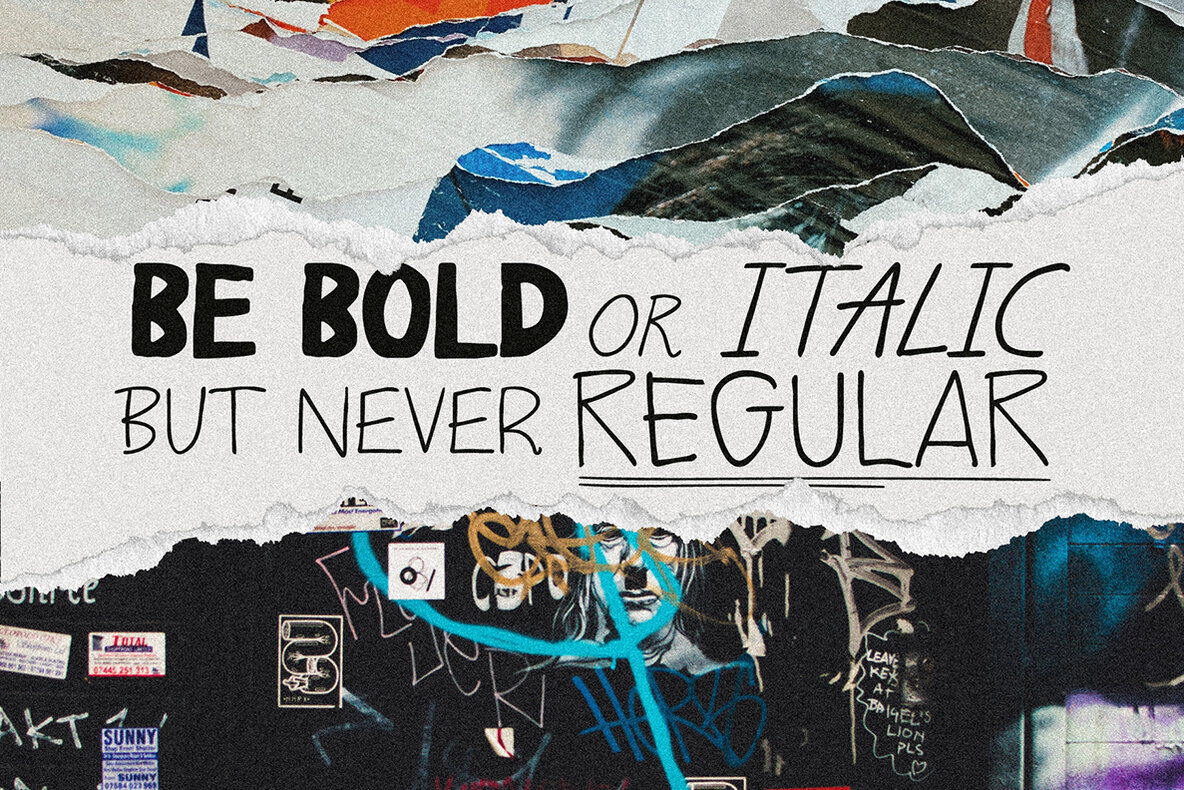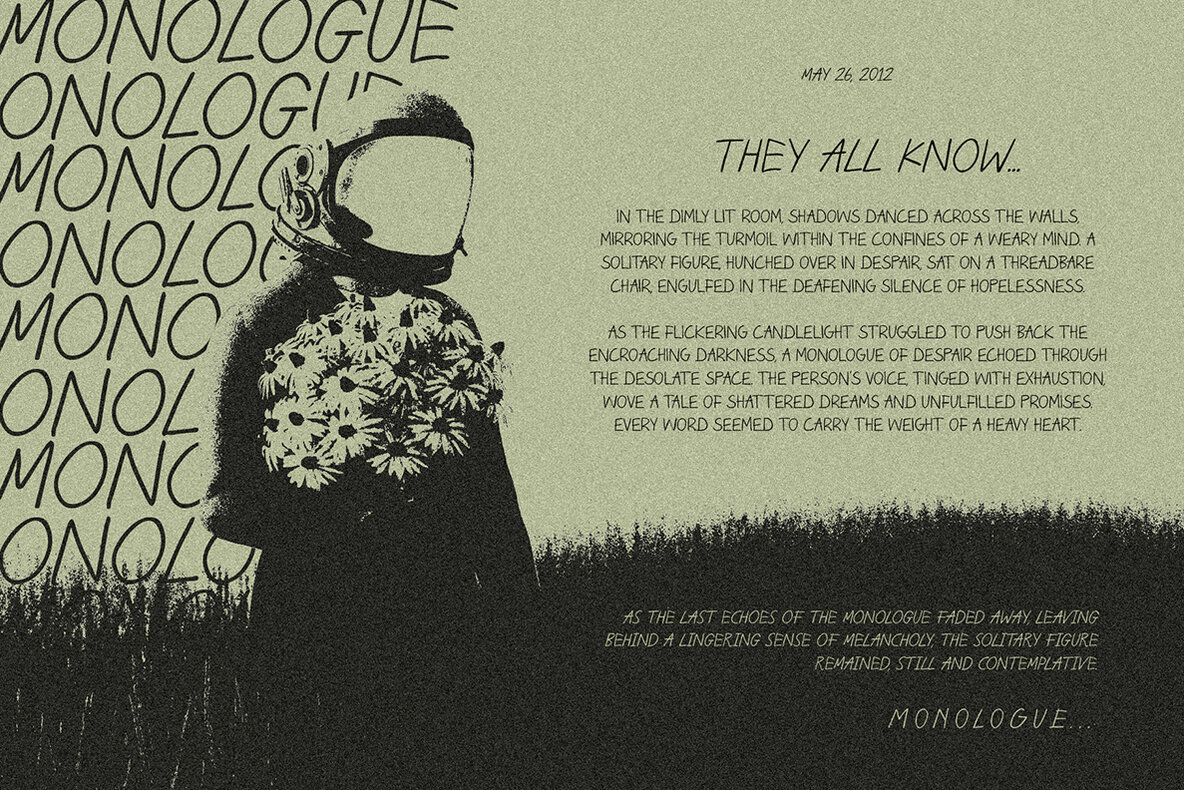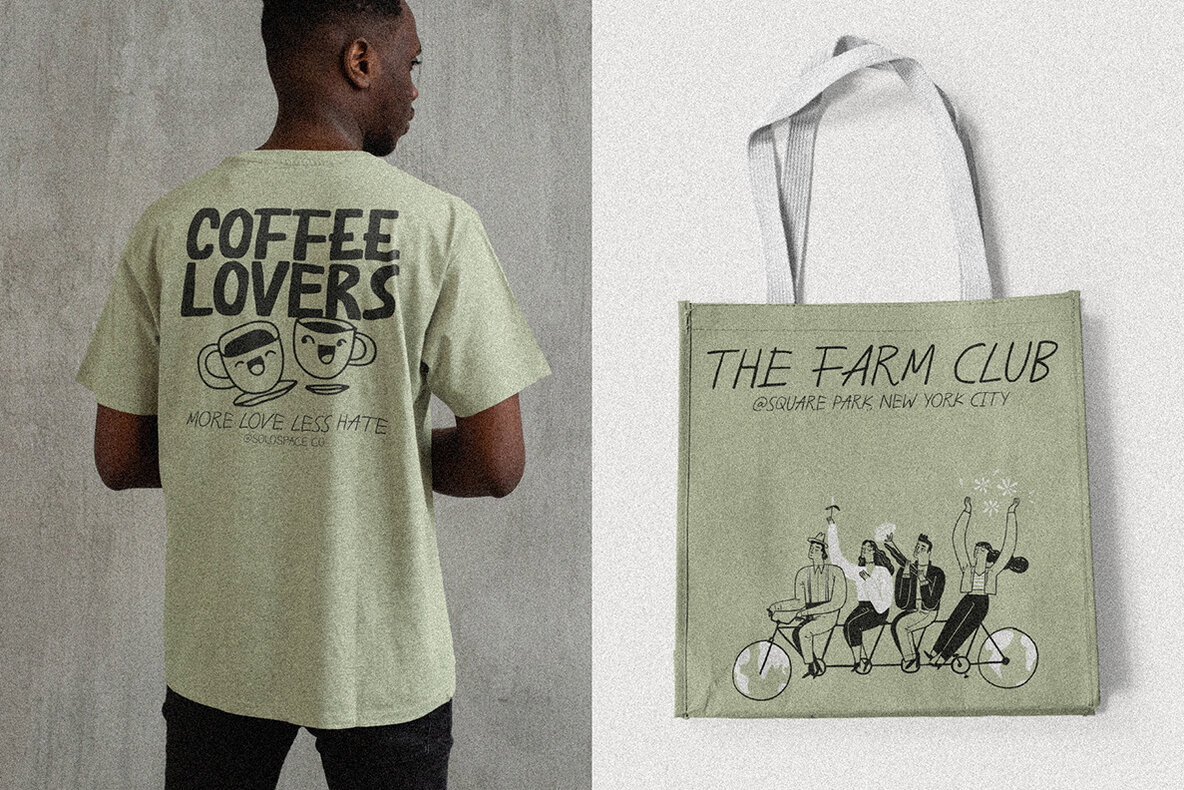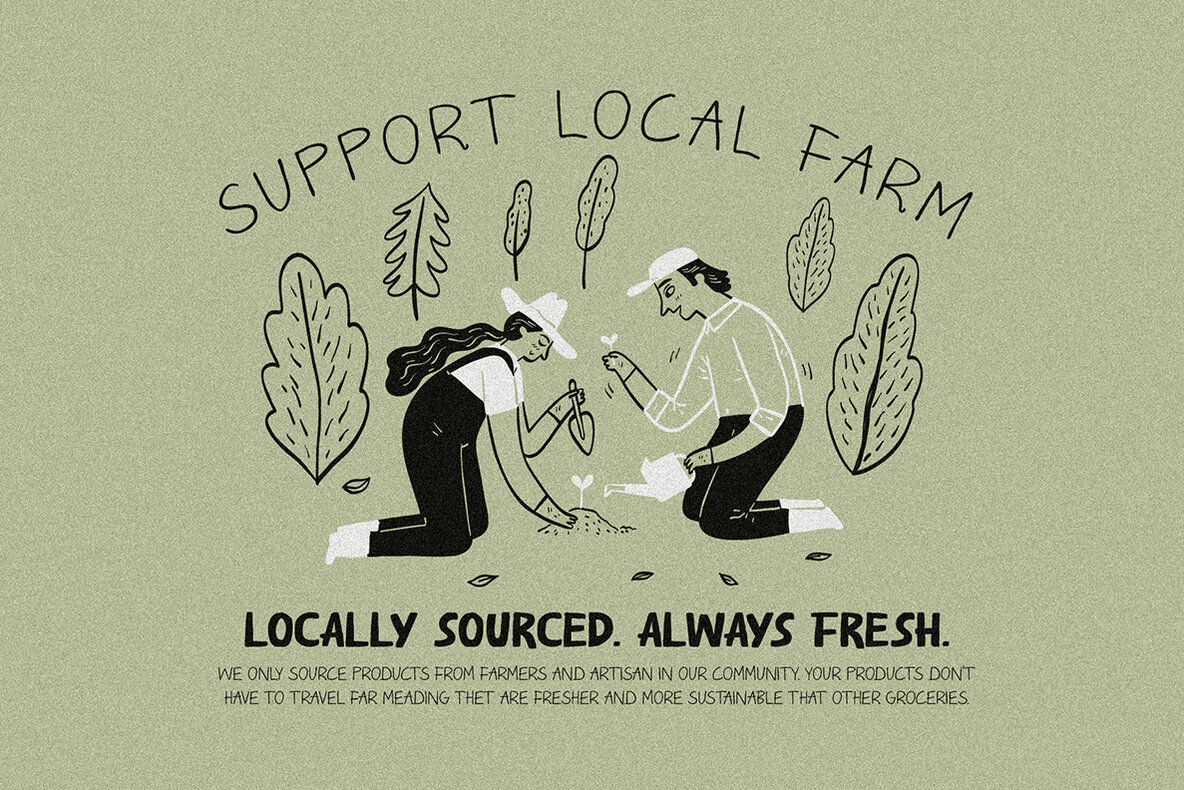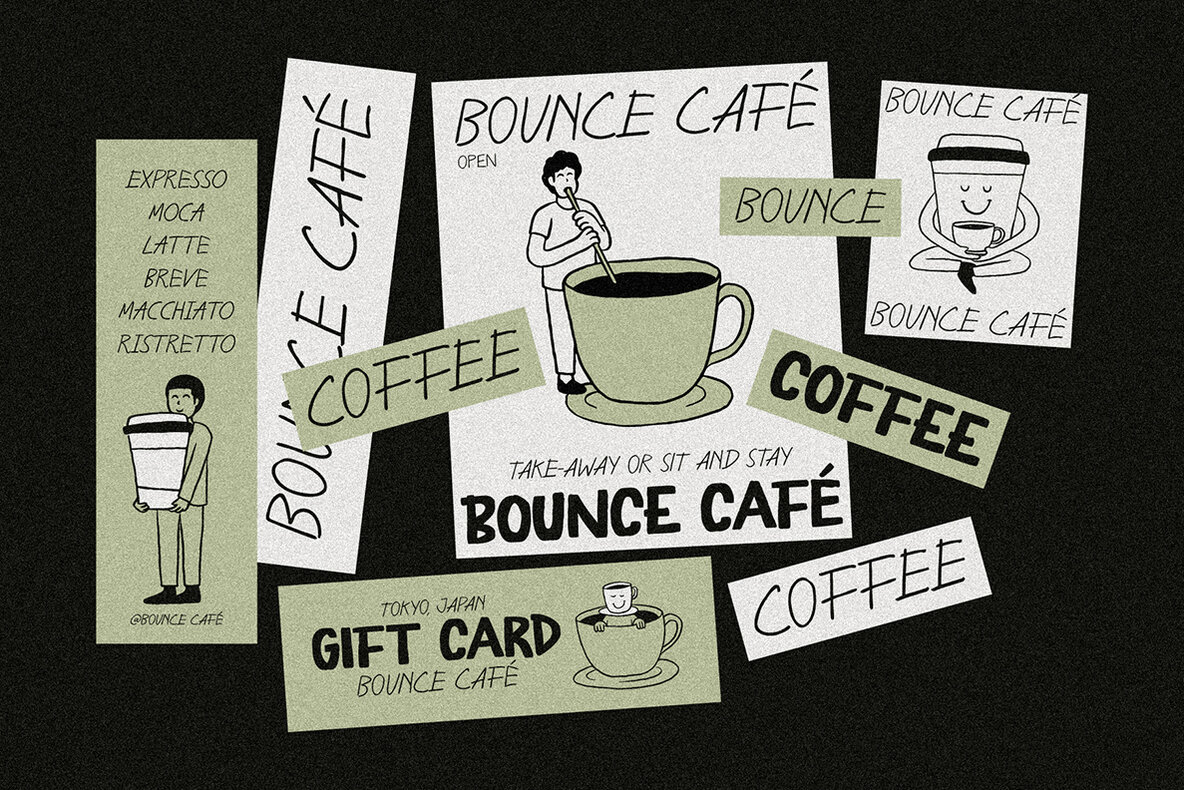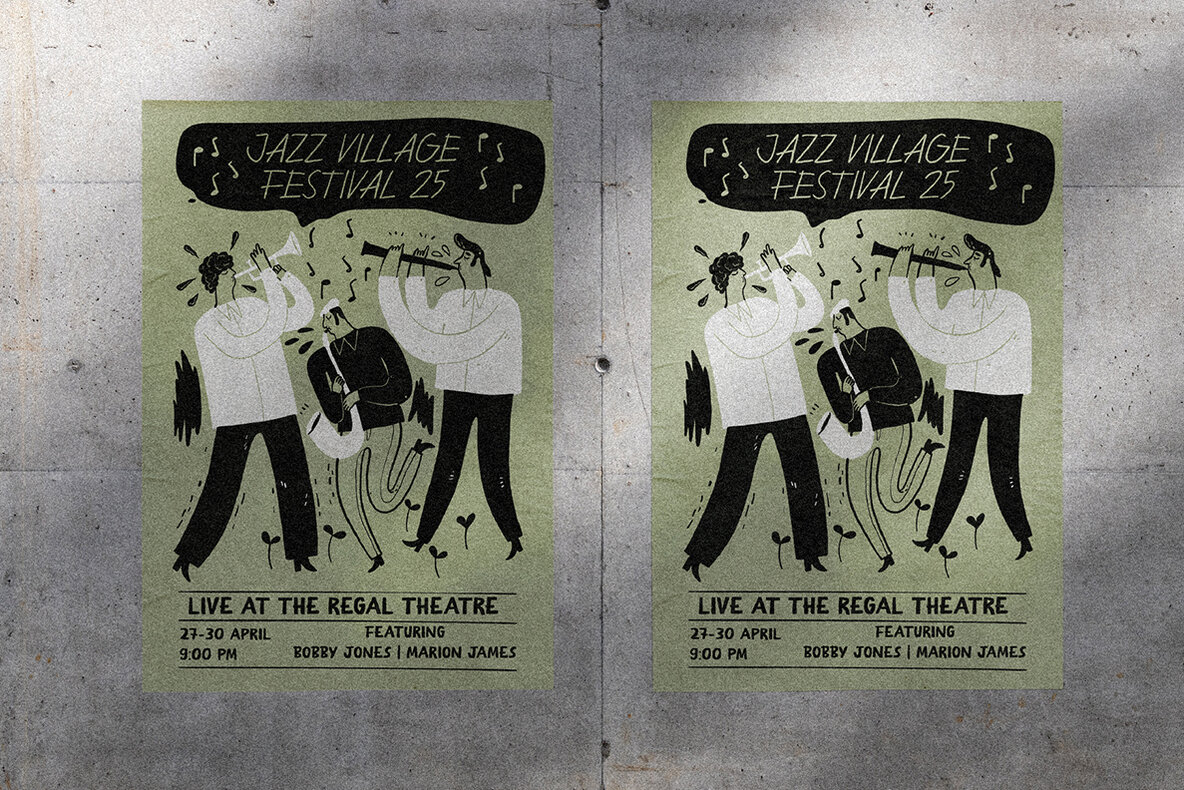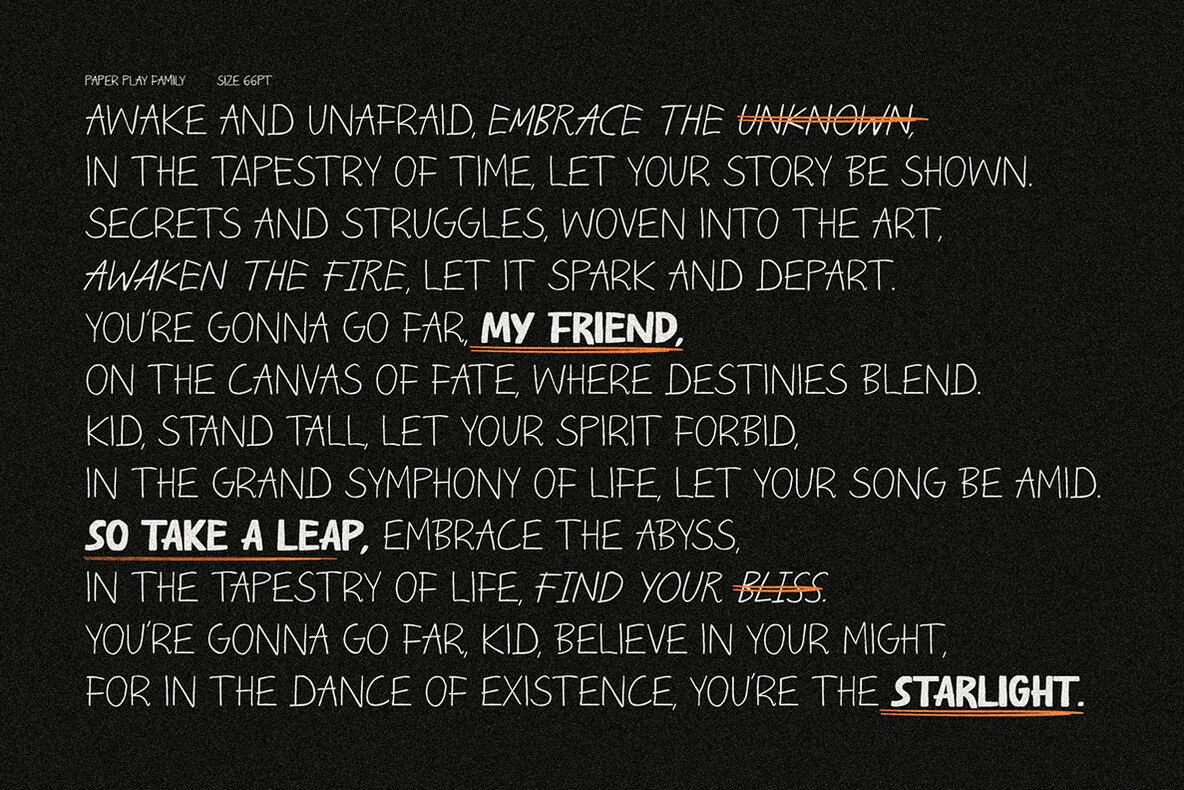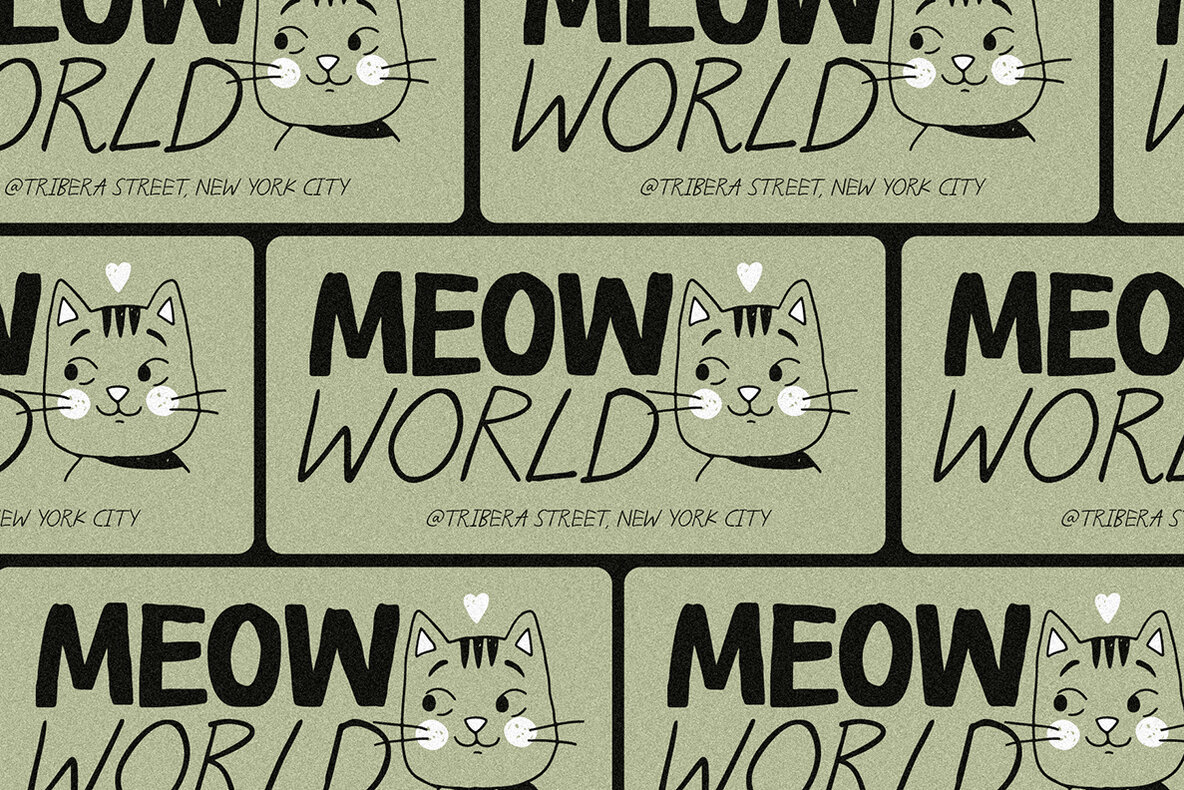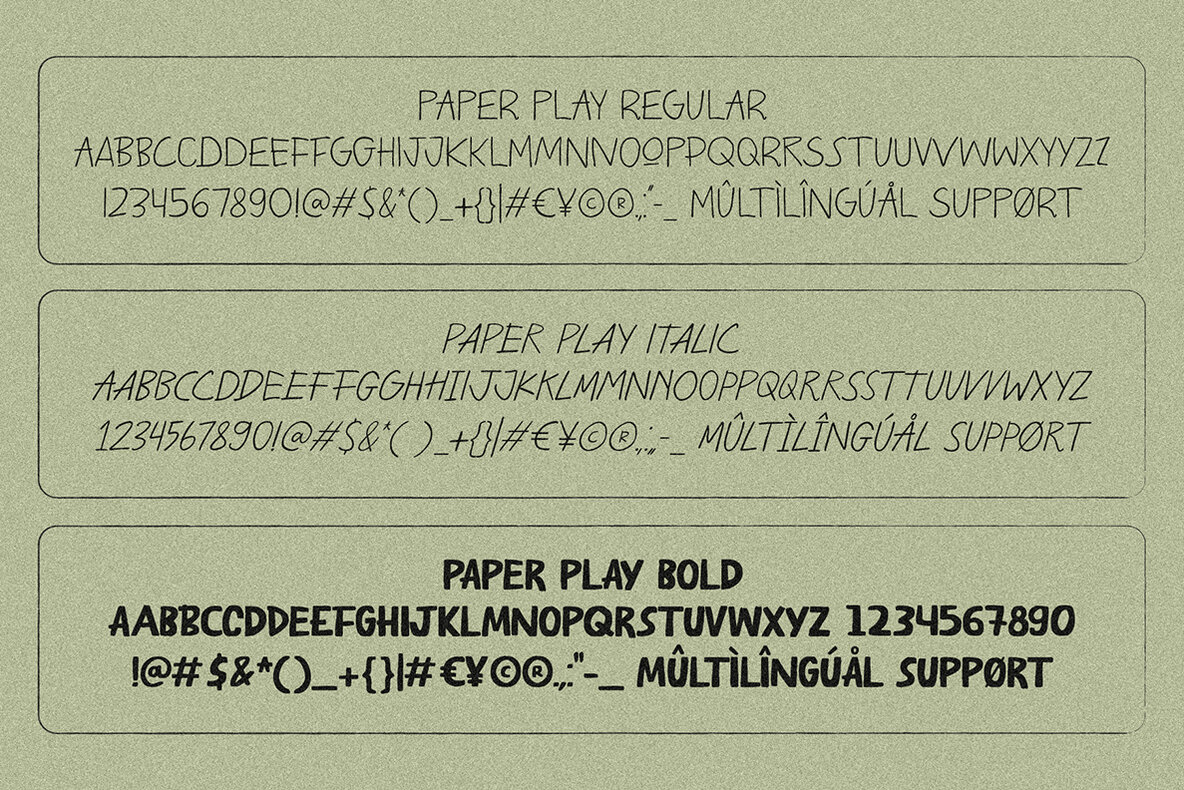
Paper Play Font
Paper Play is the epitome of expressive handwriting fonts, meticulously designed in an all-caps style with the authentic charm of marker scribbles. Crafted to emanate a raw and natural aesthetic, Paper Play offers a variable font family, including regular, italic, and bold variations. Elevate your display projects, from impactful headlines to compelling quotes, editorial designs, print posters, and beyond. Embrace the versatility of alternates for a touch of individuality, ensuring a seamless integration into your creative endeavors. Unleash the power of Paper Play, where engaging design meets the freedom of expression. Multilingual Latin accents add to its dynamic appeal, making it the ideal choice for a diverse range of projects.